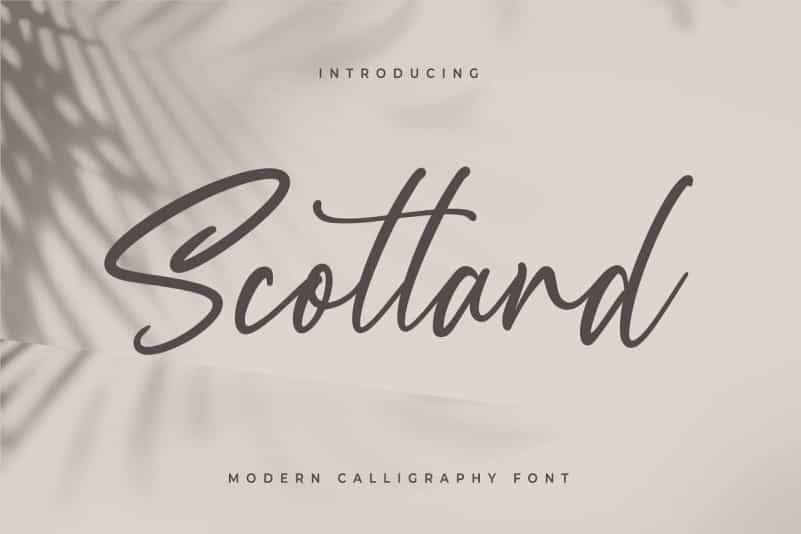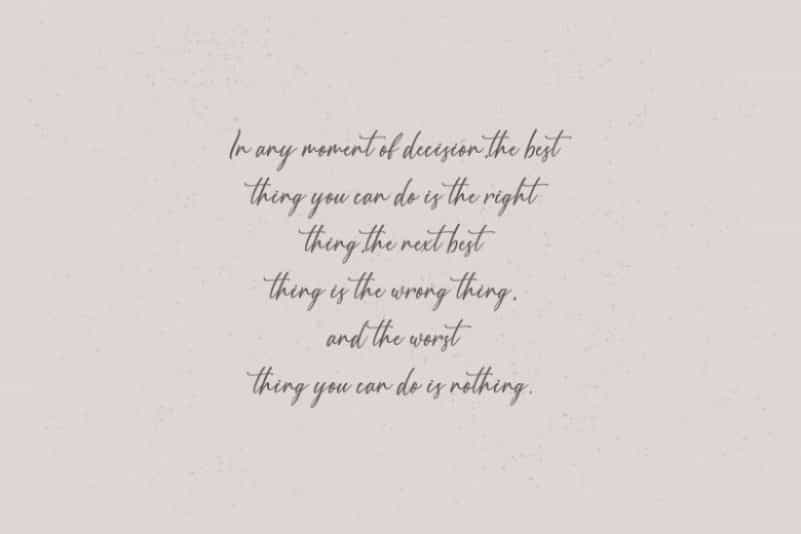
Introducing Scotland Font. It’s special calligraphy font. The Scotland Calligraphy font is ideal for branding, wedding invites and cards, and sometimes for red wine label. The font is supplied with the full set of upper and lower case letters; multilingual symbols, numerals, punctuation.